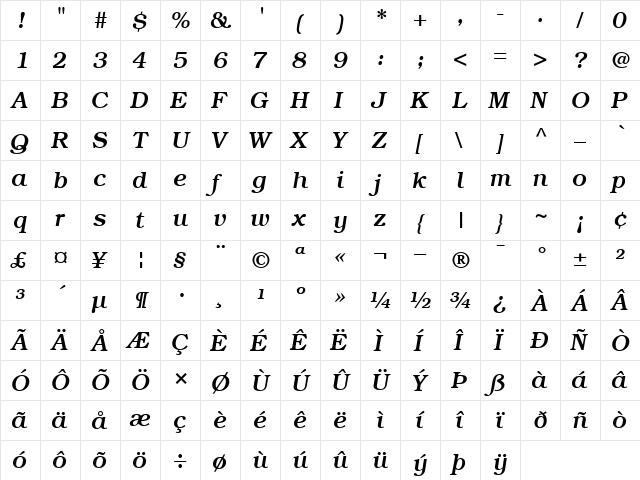
ITCmanMedium-Book BookItalic Font Preview
ITCmanMedium-Book BookItalic
Design Context for ITCmanMedium-Book Typeface
ITCmanMedium-Book is a composed and adaptable typeface that performs quietly and consistently across a wide range of design contexts. The dynamic lean of this cut emphasises speed and emphasis in any layout.
Pro Tip: Use ITCmanMedium-Book for emphasis, pull quotes, and subheadings where its slanted energy can add rhythm to the layout.